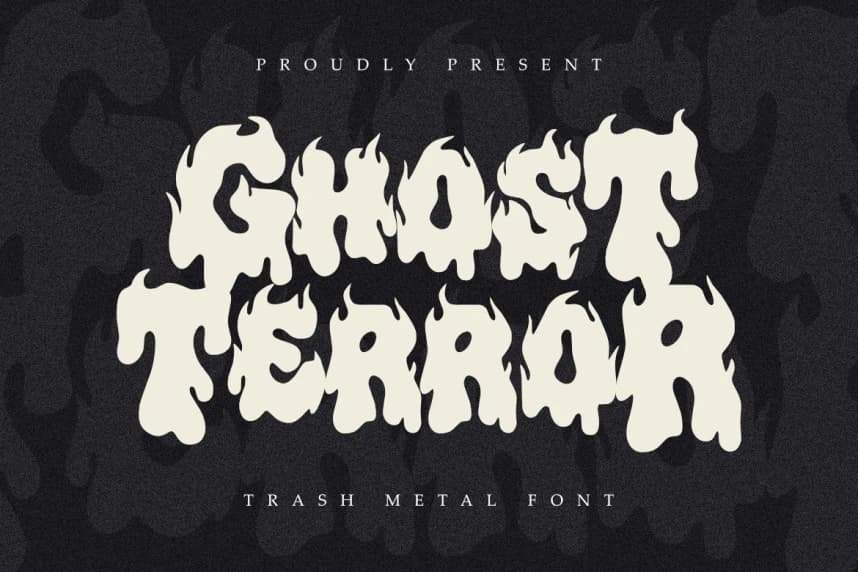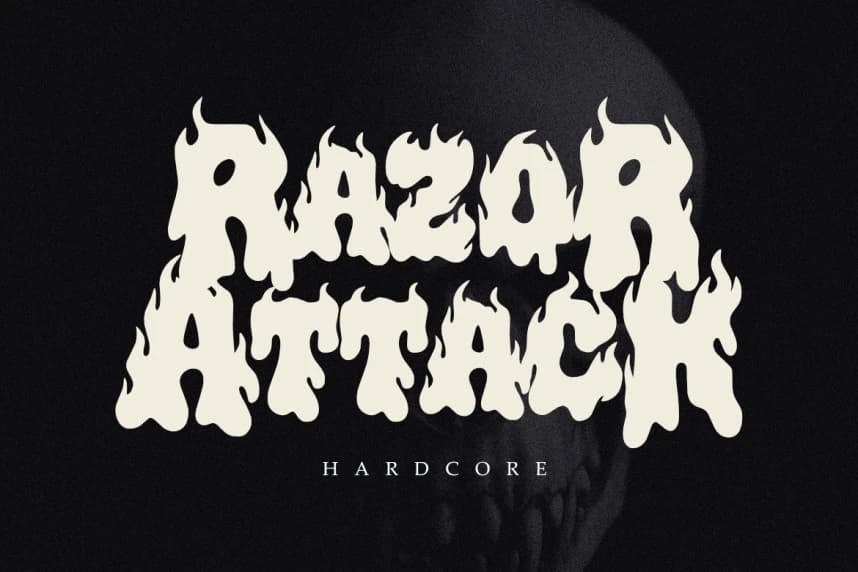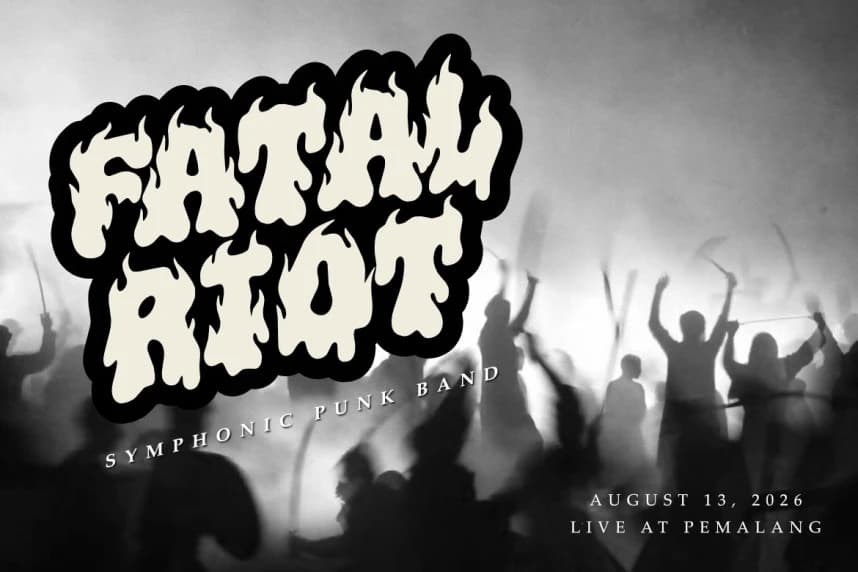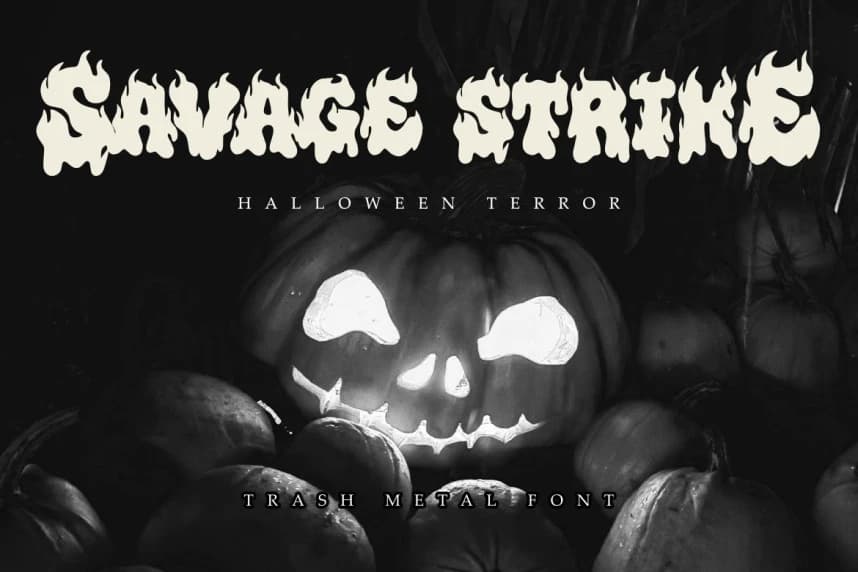
Ghost Terror Font
Ghost Terror Font is a bold and aggressive trash metal font with a melting, flame-like character that brings a strong dark atmosphere to your design. Designed to stand out, this font is perfect for creating intense and eye-catching visuals.